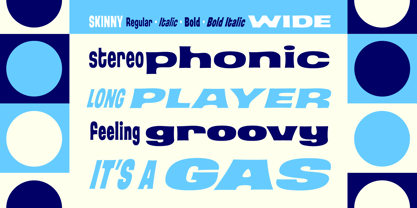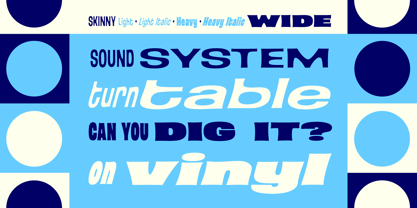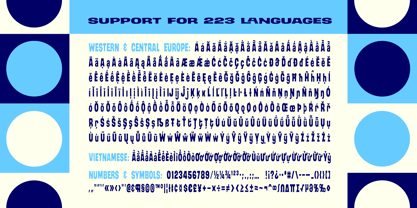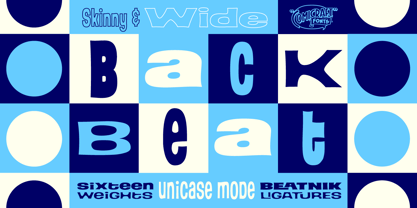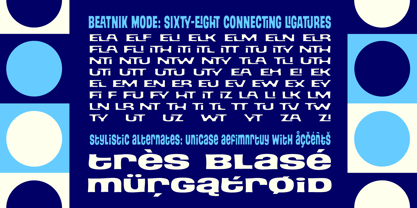
Back Beat Skinny & Wide
by Comicraft
The Back Beat Skinny & Wide Font Family was designed by Richard Starkings, John Roshell and published by Comicraft. Back Beat Skinny & Wide contains 16 styles and family package options. More about this family
You have to admit this is a rocking font, man. It's Fab AND Gear. Not only that, it's called BackBeat and it's GOT a backbeat! You can't lose it (if you back up all your data on a hard drive stored at a separate facility), any old way you choose it!
Yes, it's just gotta be Comic Book Fonts, if you want to dance with the folks who got all shook up about these kind of things. Yeah.
BackBeat Skiny&Wide features 71 Beatnik Ligatures, Unicase Mode, and sixteen weights from Light to Heavy in upright & italic, in both Skinny & Wide widths! Can you dig it?